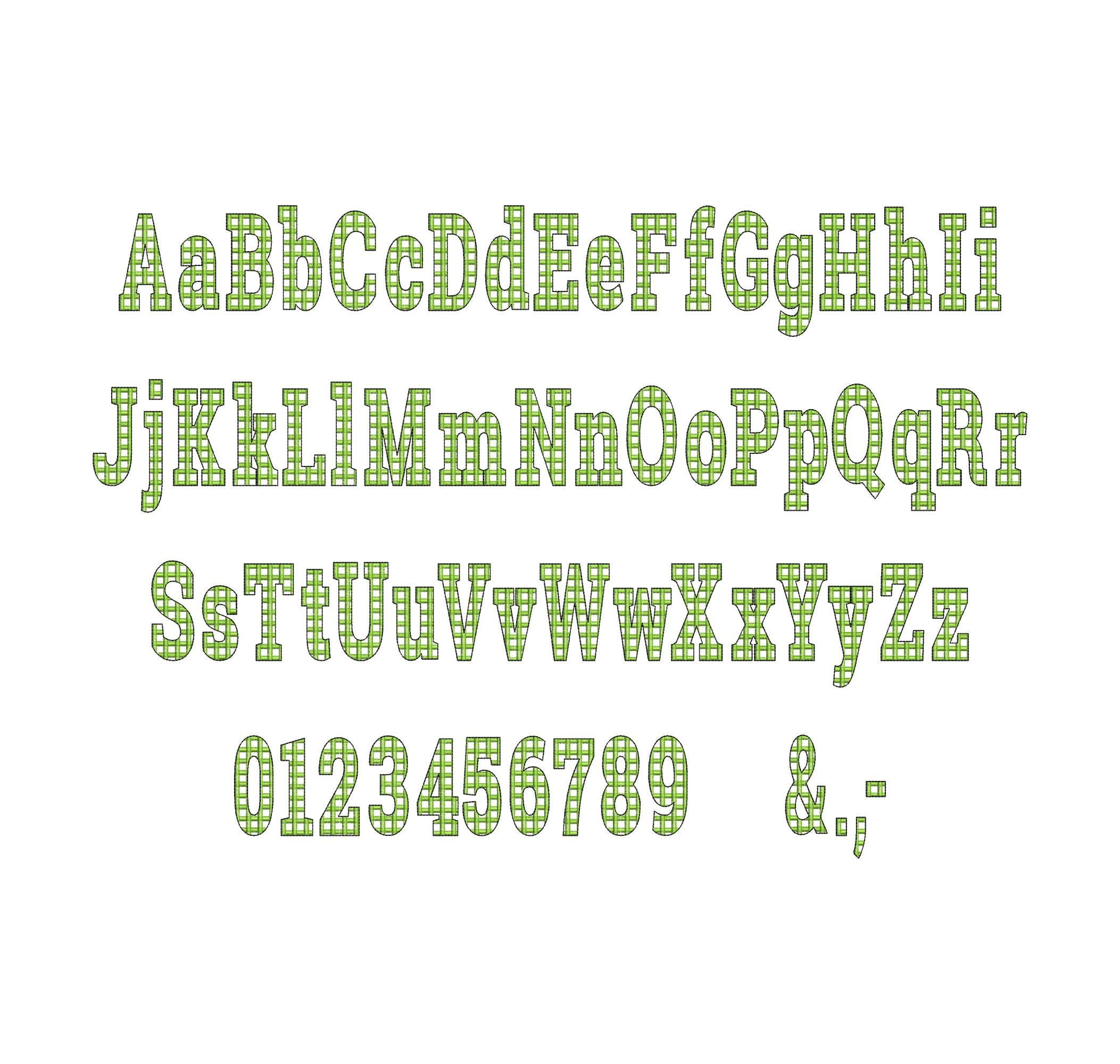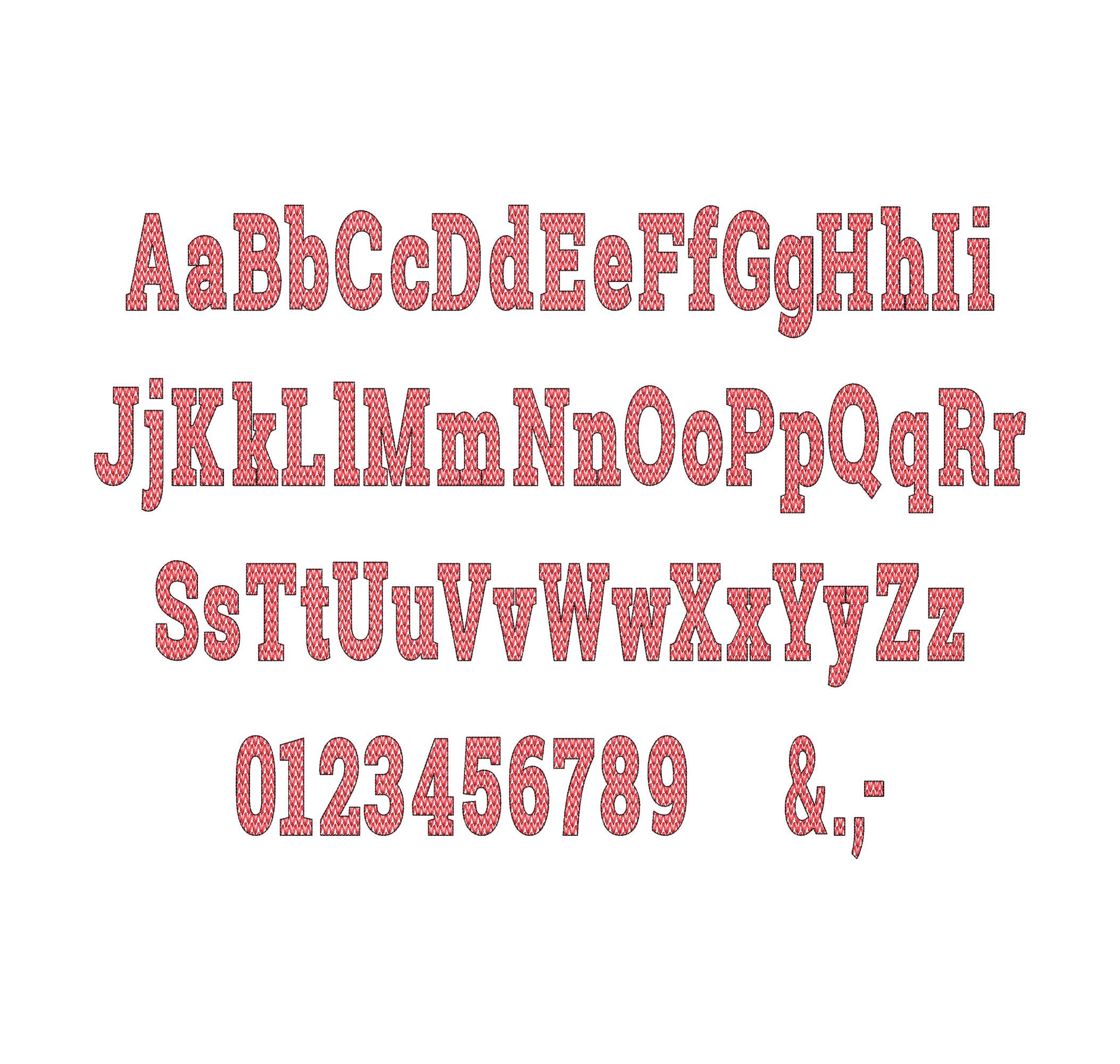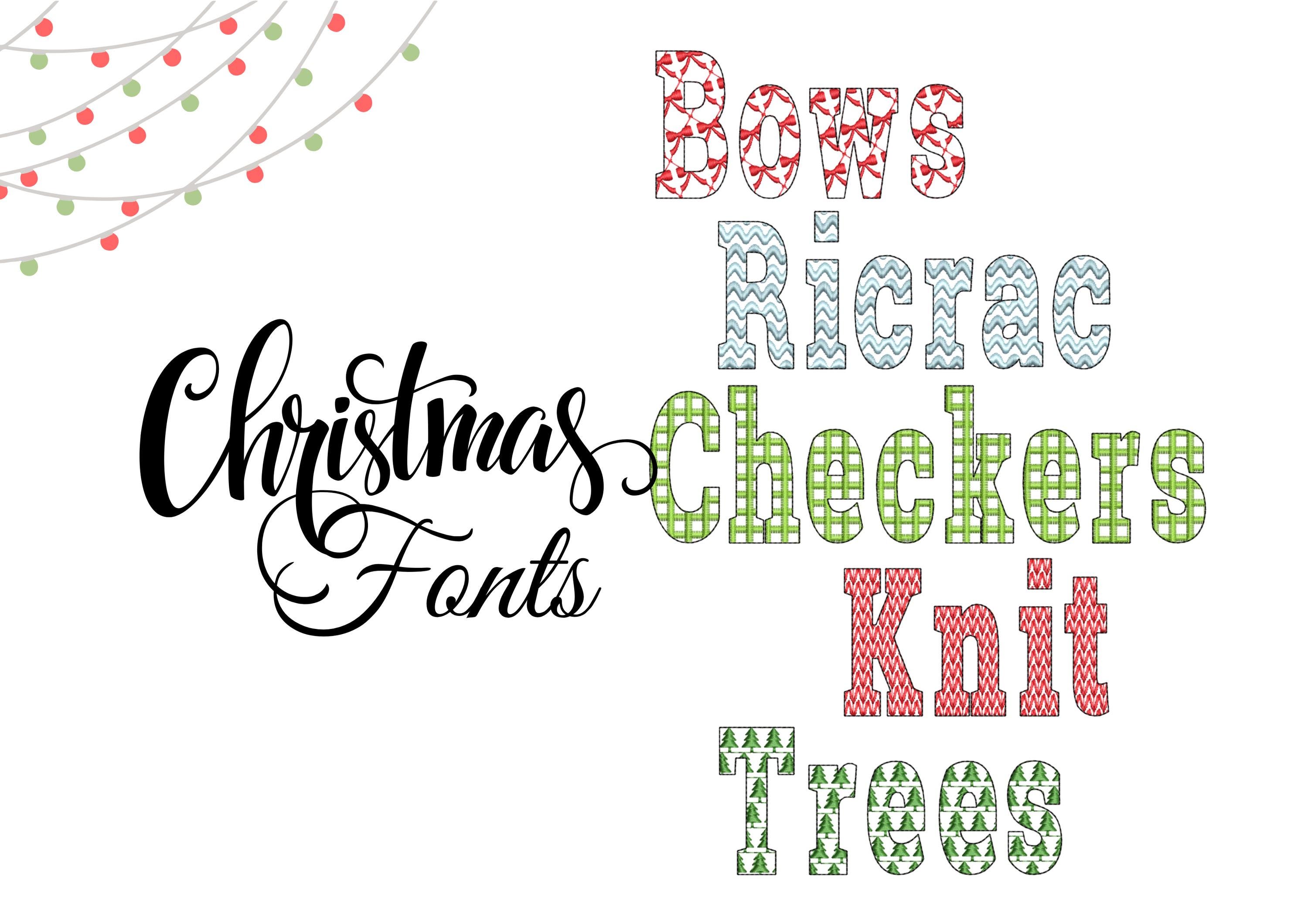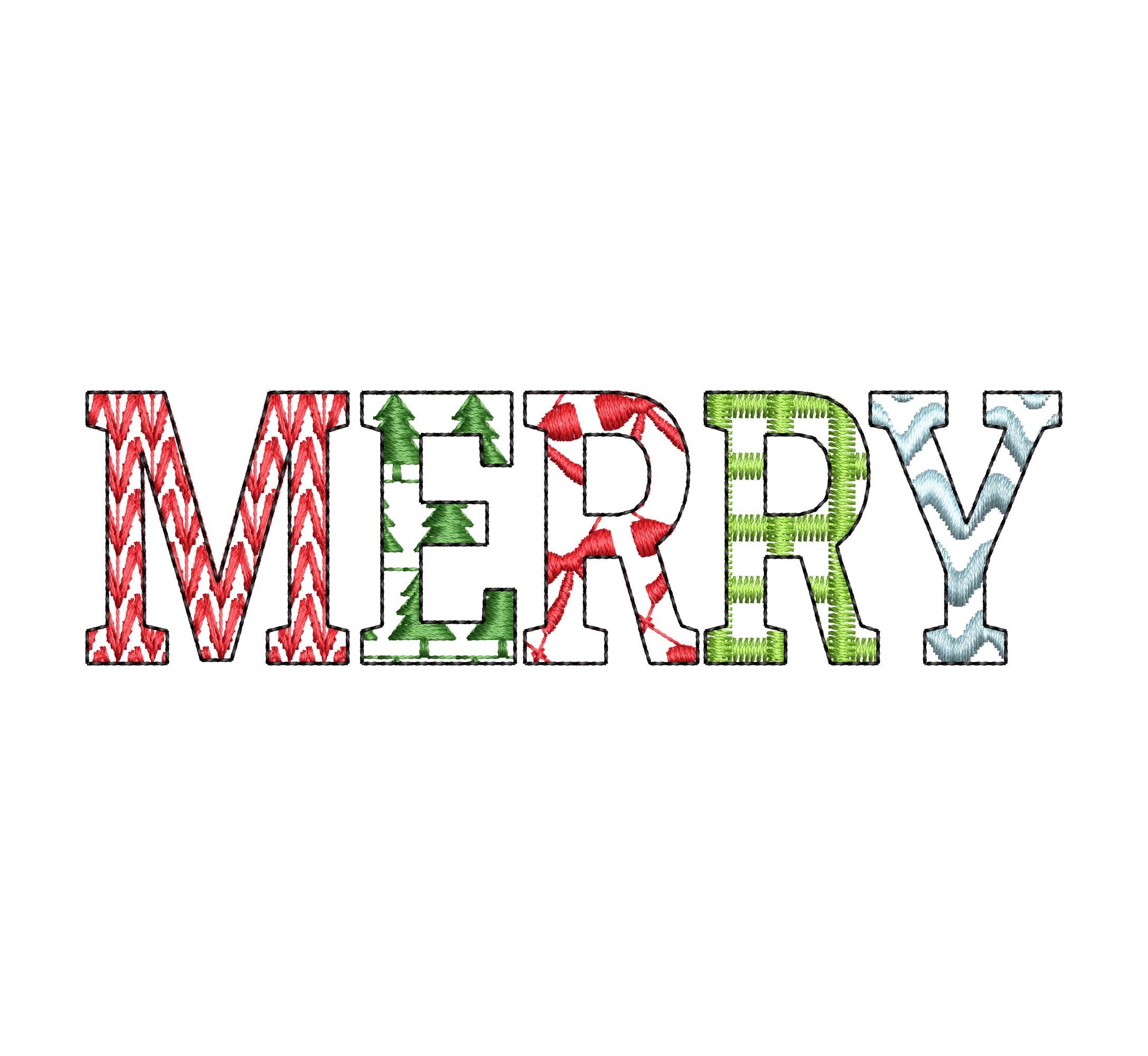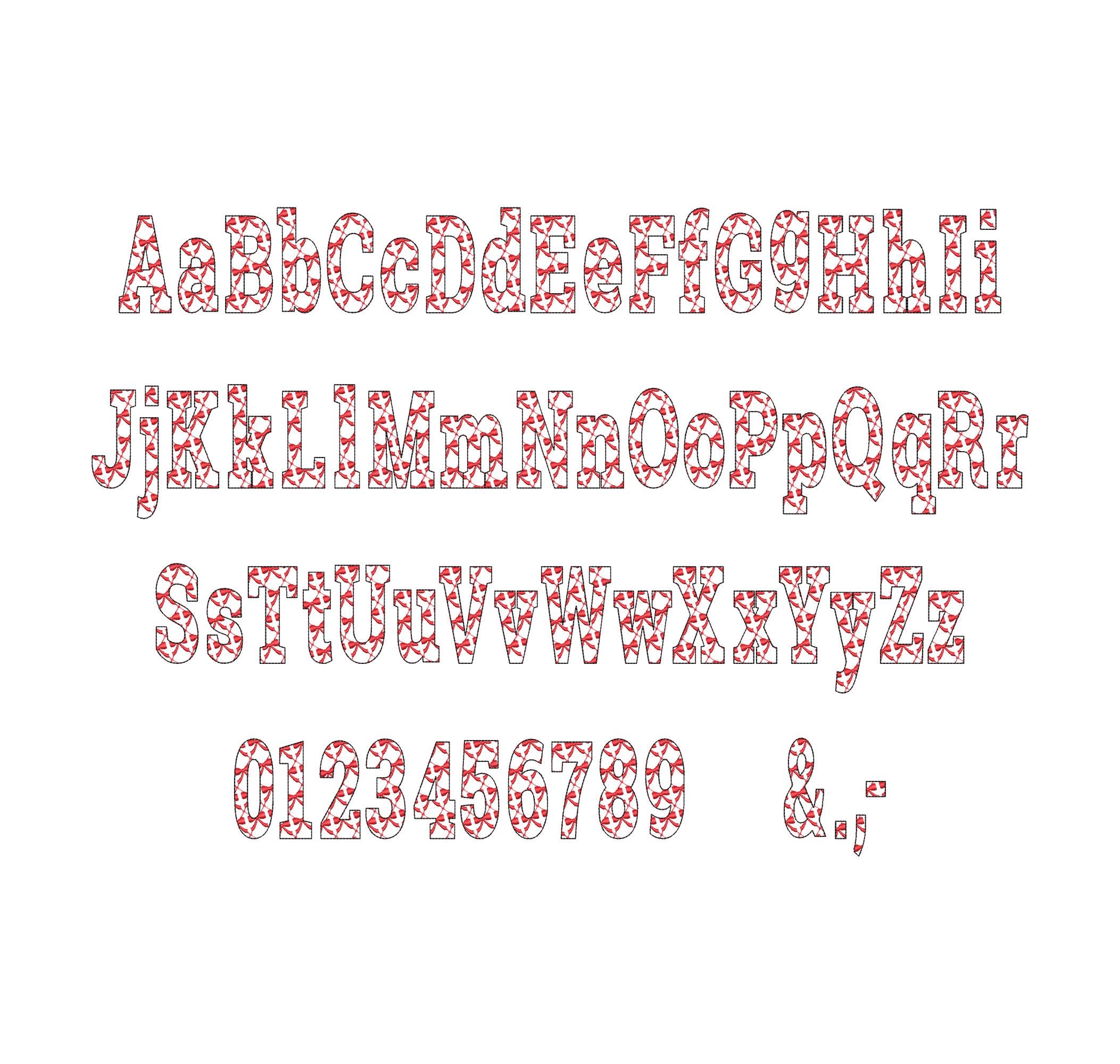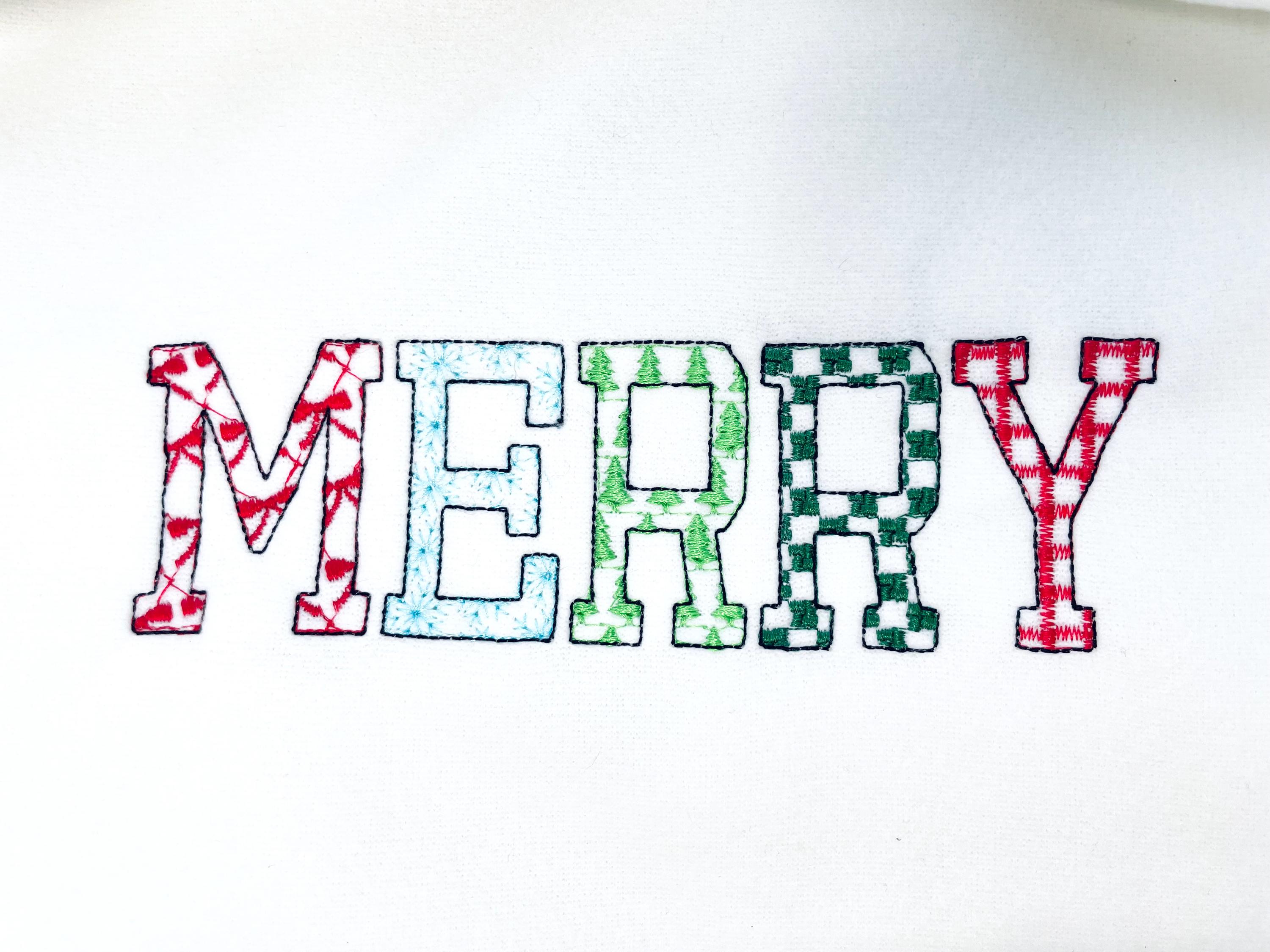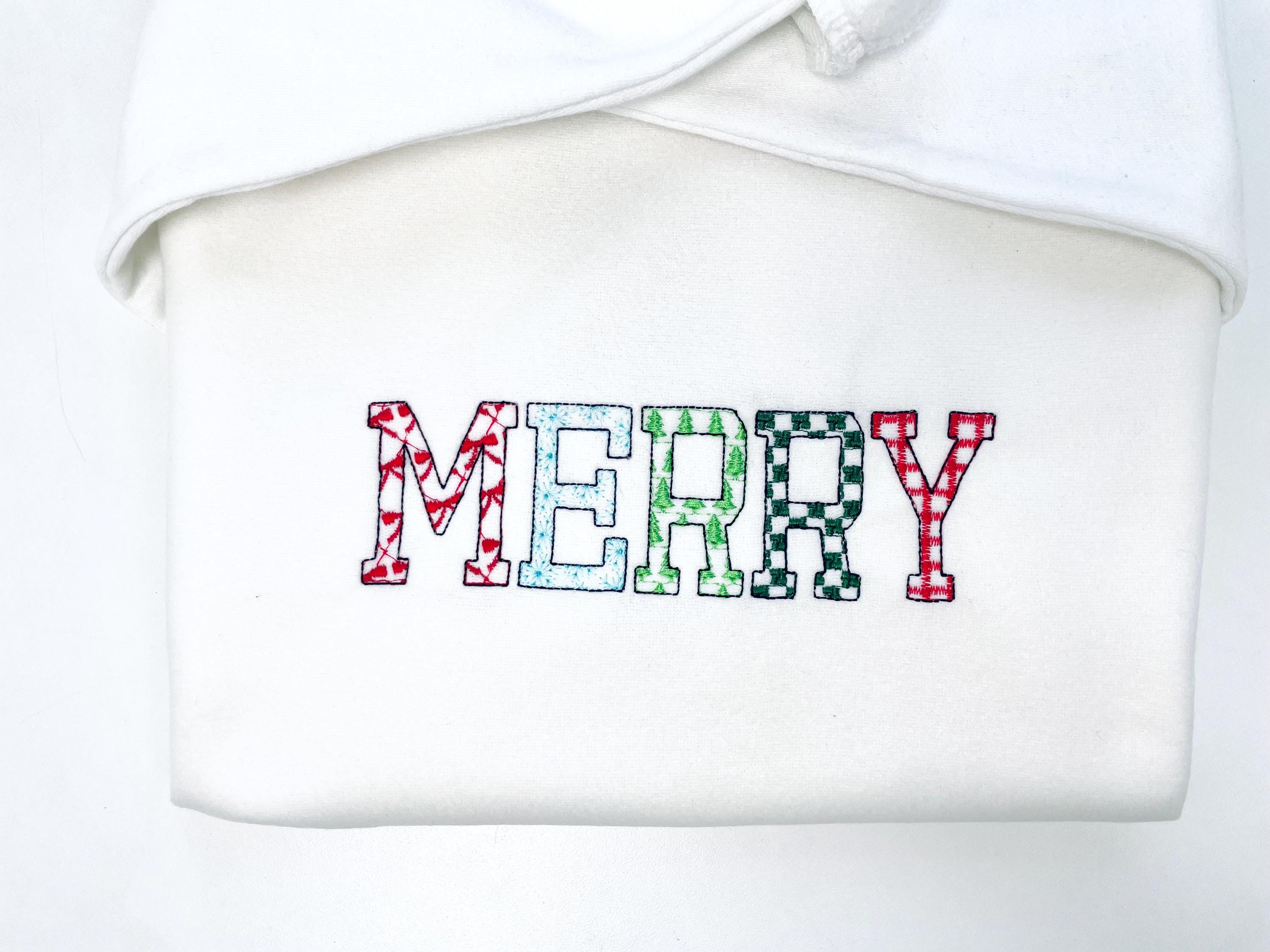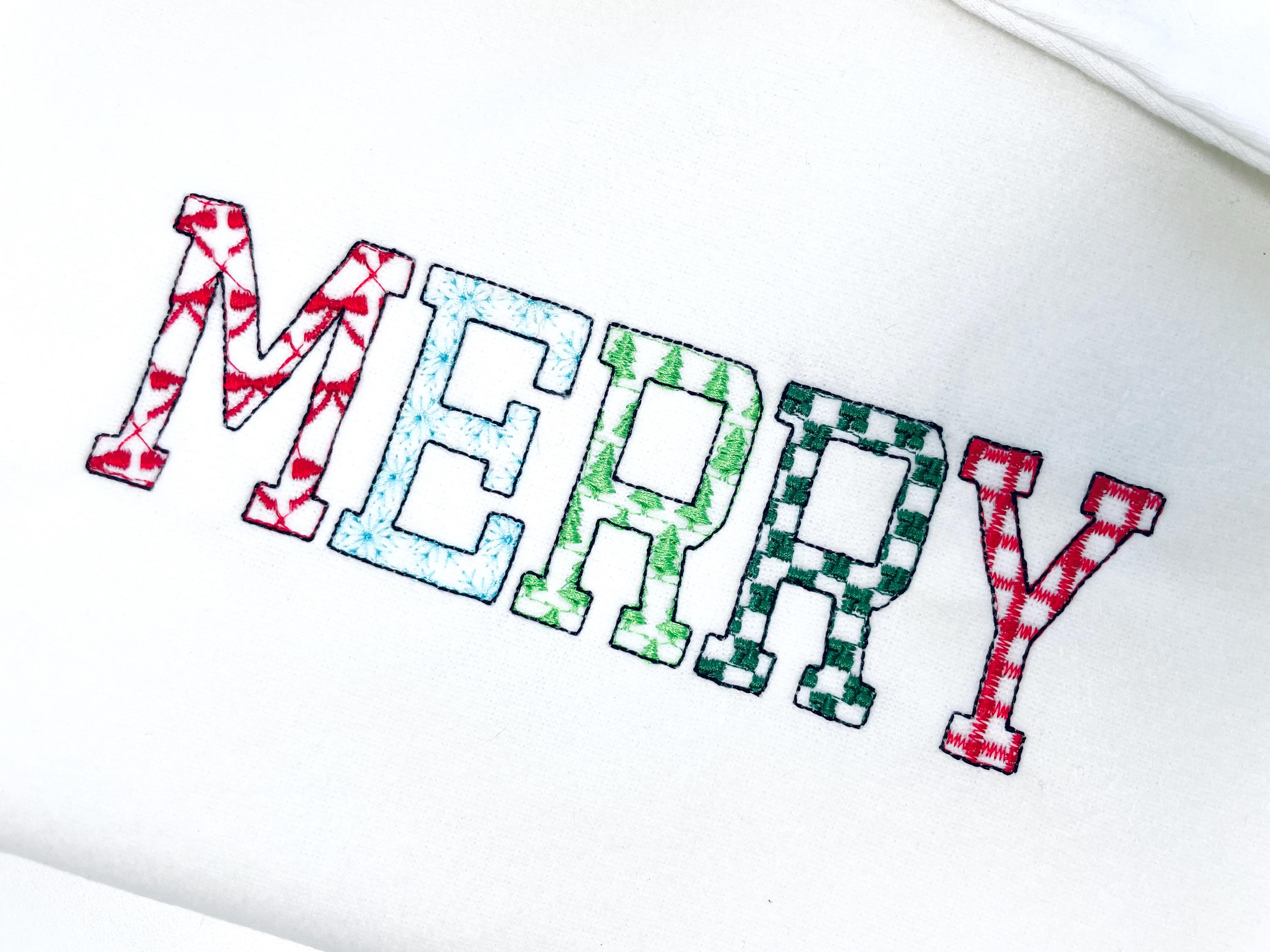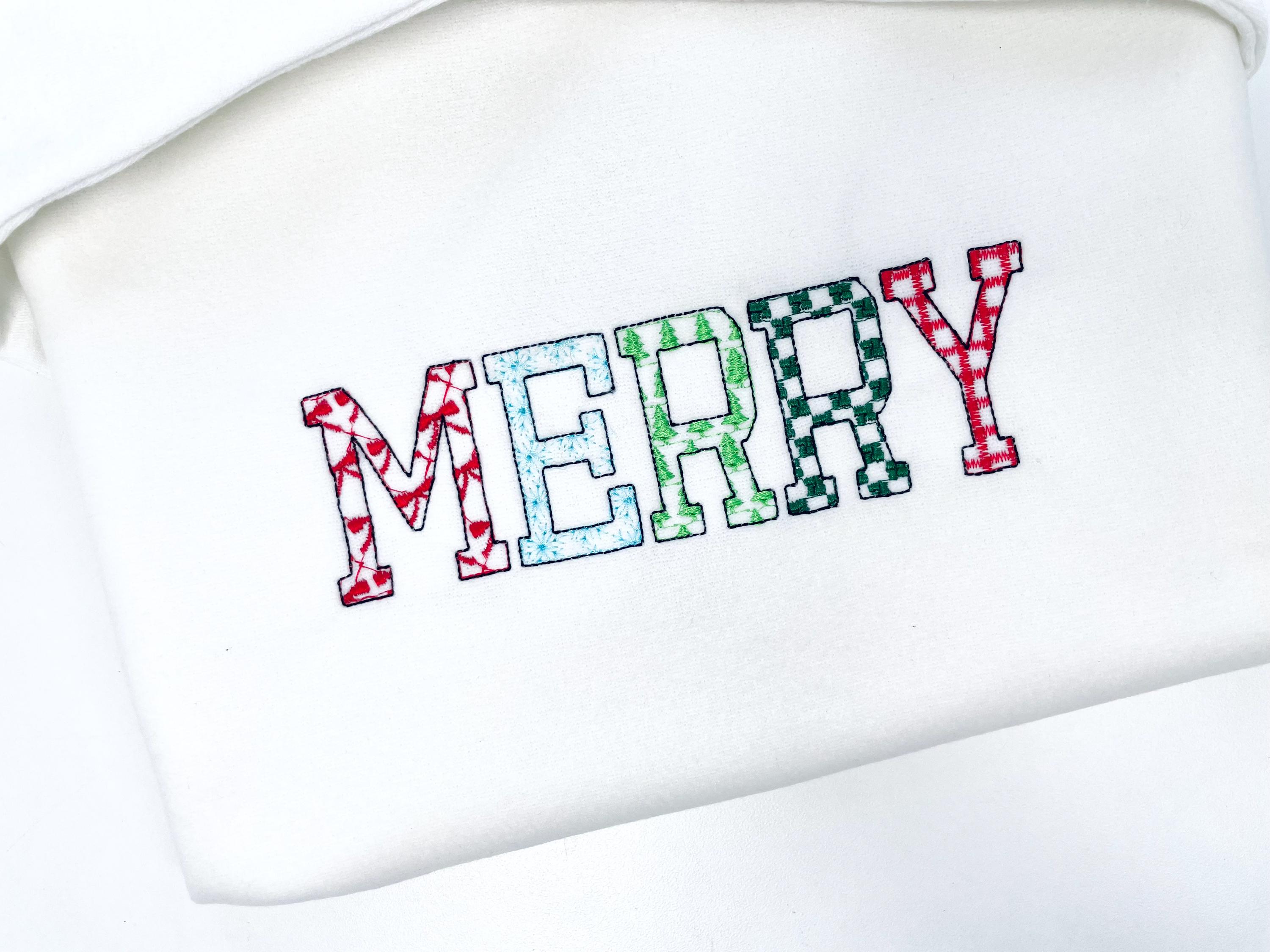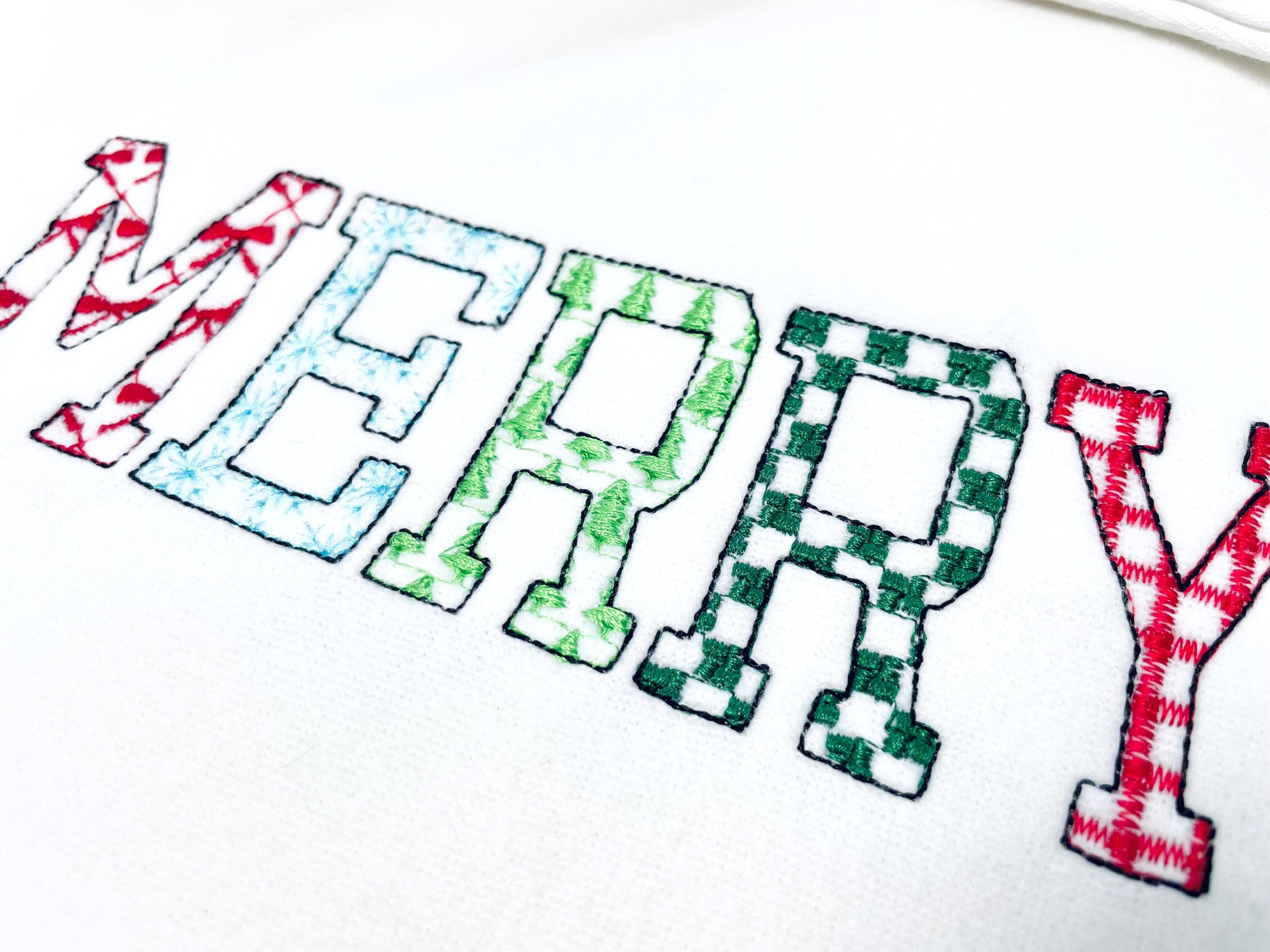
Christmas SET of 5 Patterned Fonts Bow Checks Ricrac Knit Trees Monogram Alphabet machine embroidery designs many sizes combine and merge
Included 5 fonts:
* bow font
* checkered font
* ricrac font
* knit font
* tree font
The fonts are transparent and have a pattern inside, and a light bean stitch outline.
Each font contains uppercase and lowercase Aa-Zz, numbers 0-9, and punctuation.